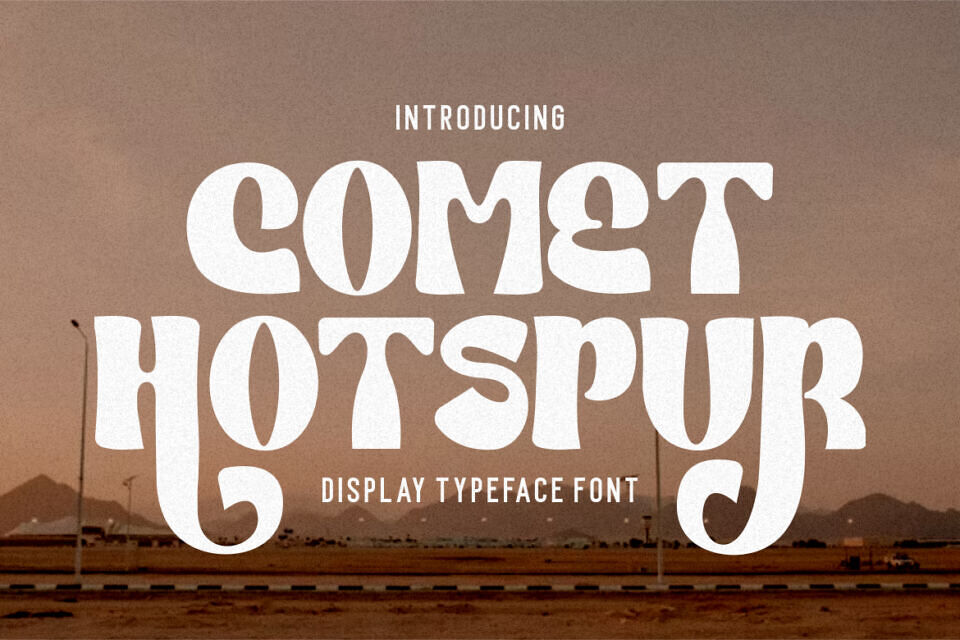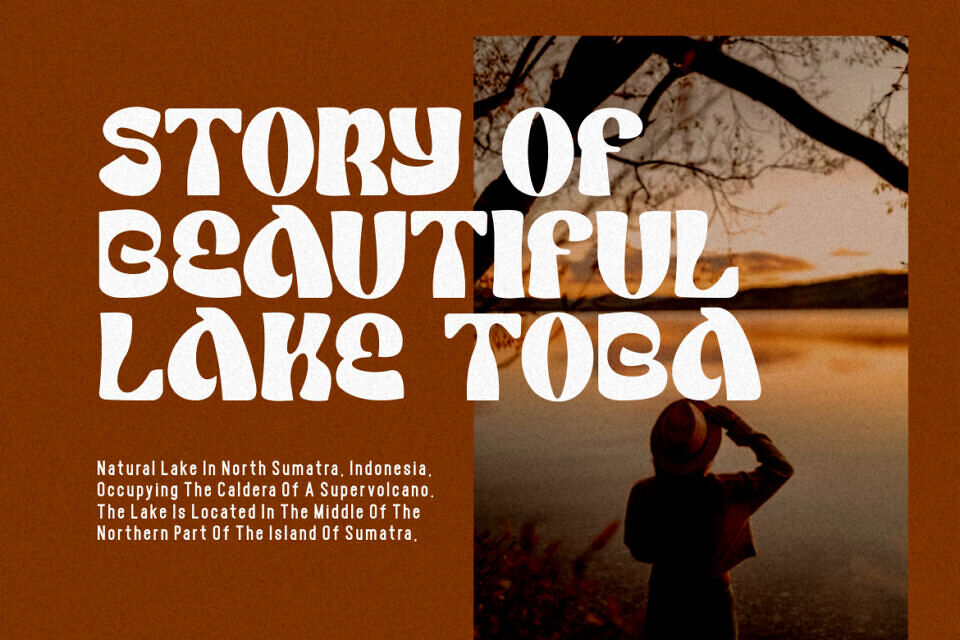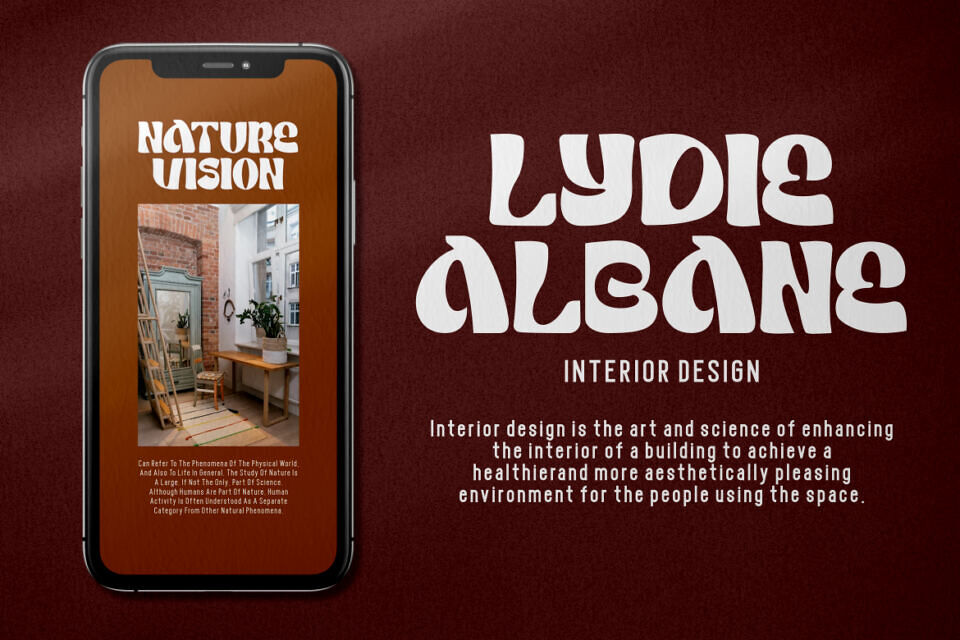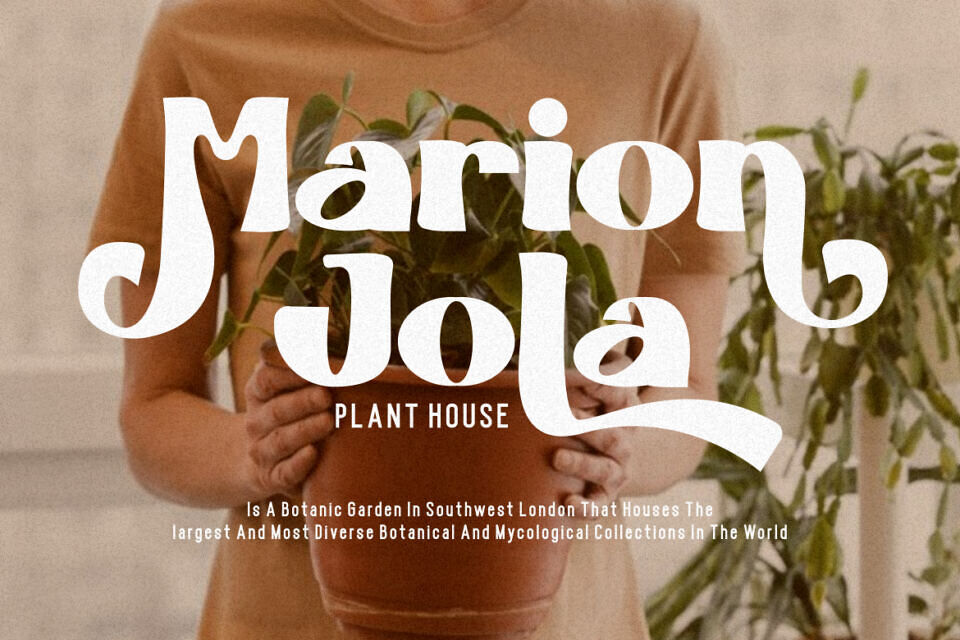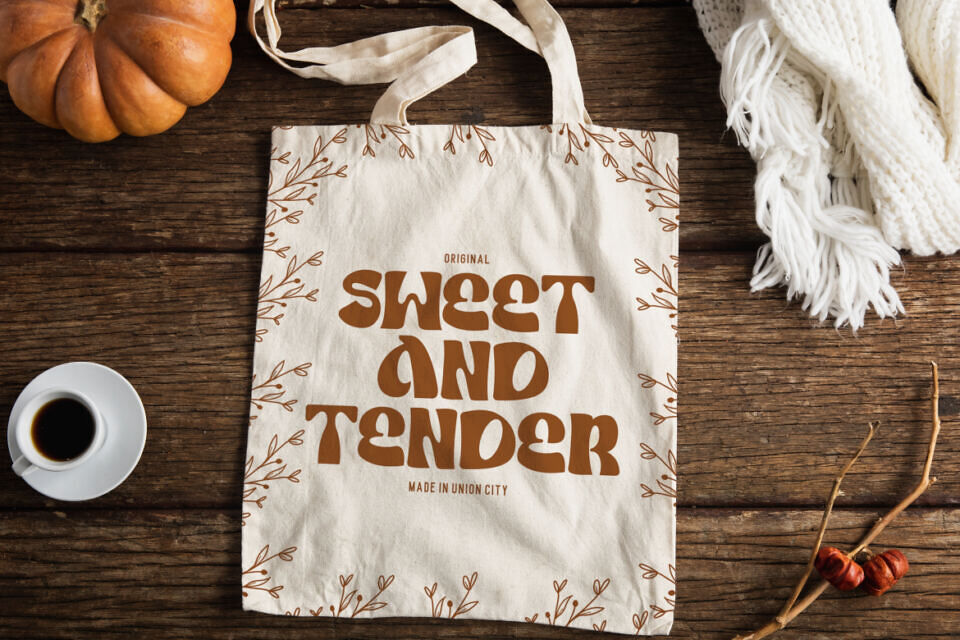
Comet Hotspur Font
Comet Hotspur is a bold and distinctive display font that seamlessly blends modern and retro aesthetics. With its unique character shapes, bold strokes, and alternative letterforms, this font offers a captivating typographic solution.
The font exudes a retro bold and vintage vibe while maintaining a fresh and contemporary edge, making it a versatile choice for various design projects. Whether you’re creating logos, branding materials, titles, posters, film graphics, cards, quotes, or landing page titles, Comet Hotspur will infuse your designs with a bold and unforgettable visual impact.
The display style of Comet Hotspur boasts a striking and attention-grabbing appearance, enhanced by its bold strokes and unique character forms. The font’s alternative letterforms provide creative options for customization, allowing you to tailor the typography to match your design vision.